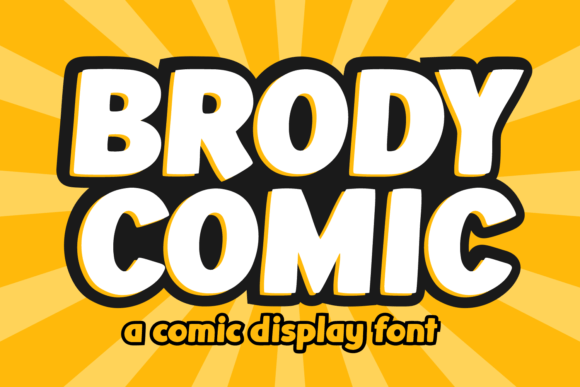
Do you remember the feeling of excitement and freedom when you’re about to start a new creative project? The possibilities are endless, and your imagination runs wild. You envision a bold, eye-catching title that grabs the attention of your audience, and you can’t wait to bring it to life.
That’s where the Brody Comic Font comes in – a lovely comic-style display font that’s perfect for adding a touch of whimsy and personality to your designs. This thick and beautiful typeface is suitable for various creative projects, from illustrations and comics to posters and social media graphics. As a designer, you know how valuable it is to have a versatile font like Brody Comic Font at your disposal.
With Brody Comic Font, the possibilities are endless, and we can’t wait to see what you create with it!
Brody Comic Font Key Features
- Font Family: Brody Comic
- Unique Characteristics: A comic book-inspired font with a mix of bold and playful lines, ideal for adding a touch of nostalgia and whimsy to designs
Brody Comic Font Review
As a designer, I was excited to dive into the world of the Brody Comic Font and see what it had to offer. Here’s my honest take on this popular font.
- Expressive and playful style: Brody Comic Font has a unique, hand-drawn feel that adds a touch of whimsy to any design project.
- Wide language support: With Brody Comic Font, you can easily create content in multiple languages, making it a versatile choice for global brands and publications.
- Great for digital use: This font is optimized for digital displays, ensuring crisp and clear rendering on various devices.
- Limited scalability: While Brody Comic Font looks great at larger sizes, it can become distorted or lose its charm at smaller sizes, making it less suitable for body text.
- No bold or italic variations: The font’s playful style is compromised when trying to create bold or italic versions, which can result in inconsistent typography.
Brody Comic Font is perfect for designers who want to add a touch of personality to their projects, but it’s not the best choice for projects requiring a high level of scalability or typography consistency. If you’re looking for a font to make a statement, Brody Comic Font is a great option, but be mindful of its limitations.
For optimal results, use the Brody Comic Font in conjunction with bold or italic styles to add emphasis.
Additionally, use a mix of font sizes to create visual hierarchy and balance.
The Brody Comic Font is ideal for comic books, graphic novels, and children’s books.
It can also be used for titles, headings, and body text in graphic design projects.
Alternatives to Brody Comic Font
Great Vibes Font is a modern comic sans serif font that is perfect for creating a fun and playful atmosphere in your designs. It is ideal for use in children’s books, magazines, and social media platforms. Great Vibes Font has a more modern feel compared to Brody Comic Font, with a smoother and more rounded design.
Comic Neue Font
Comic Neue Font is a digital comic font designed to work well on digital screens. It is a great alternative to Brody Comic Font for designers who want a more modern and streamlined look. Comic Neue Font has a more geometric feel and is ideal for use in digital comics, graphic novels, and webcomics.
Comic Sans MS Font
Comic Sans MS Font is a classic comic sans serif font that is perfect for creating a friendly and approachable atmosphere in your designs. It is ideal for use in newsletters, invitations, and social media platforms. Comic Sans MS Font has a more traditional feel compared to Brody Comic Font, with a more informal and casual design.
Anonymous Pro Font
Anonymous Pro Font is a monospaced font that is perfect for creating a clean and minimalist atmosphere in your designs. It is ideal for use in technical documents, coding, and graphic design. Anonymous Pro Font has a more serious and professional feel compared to Brody Comic Font, with a more geometric and streamlined design.